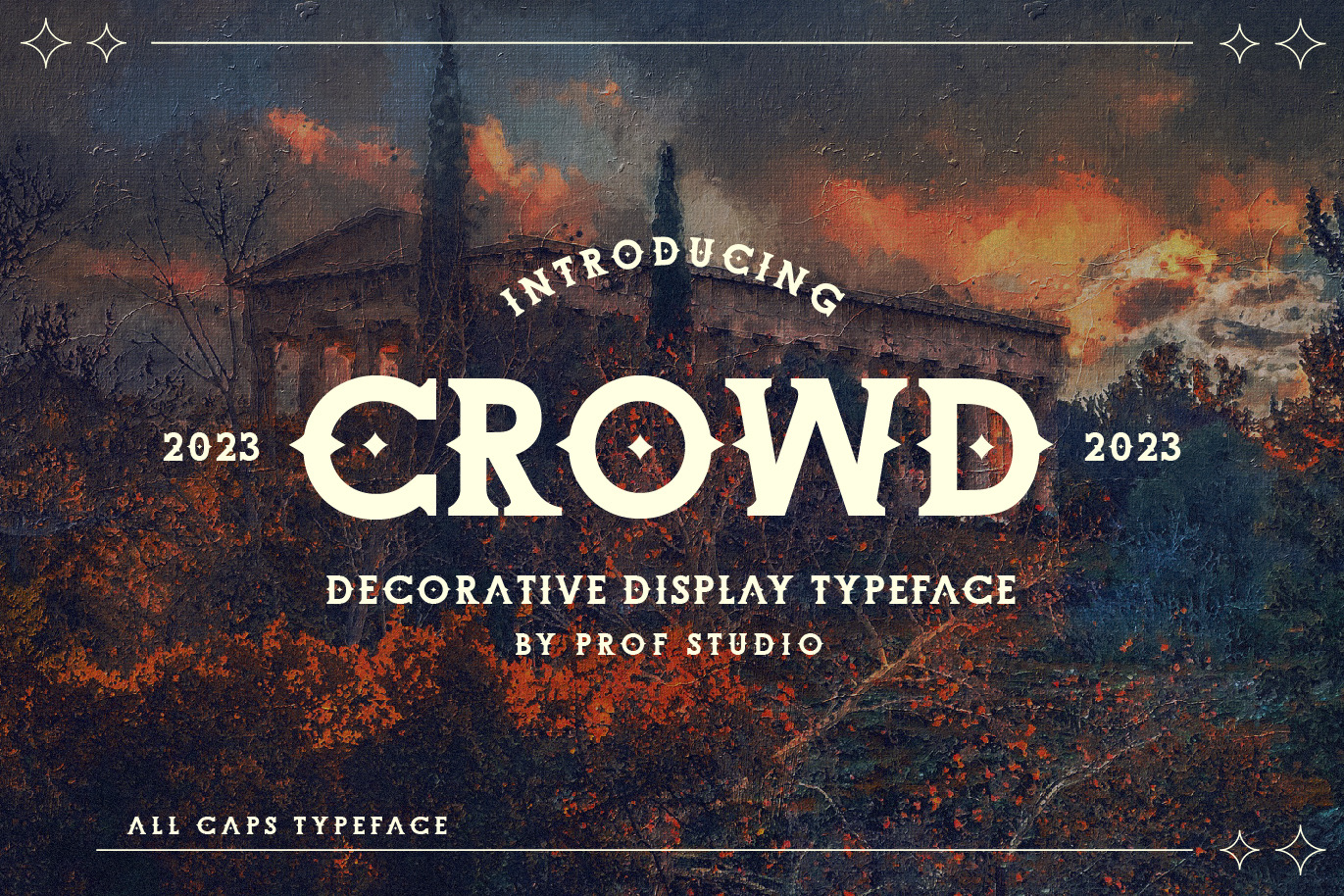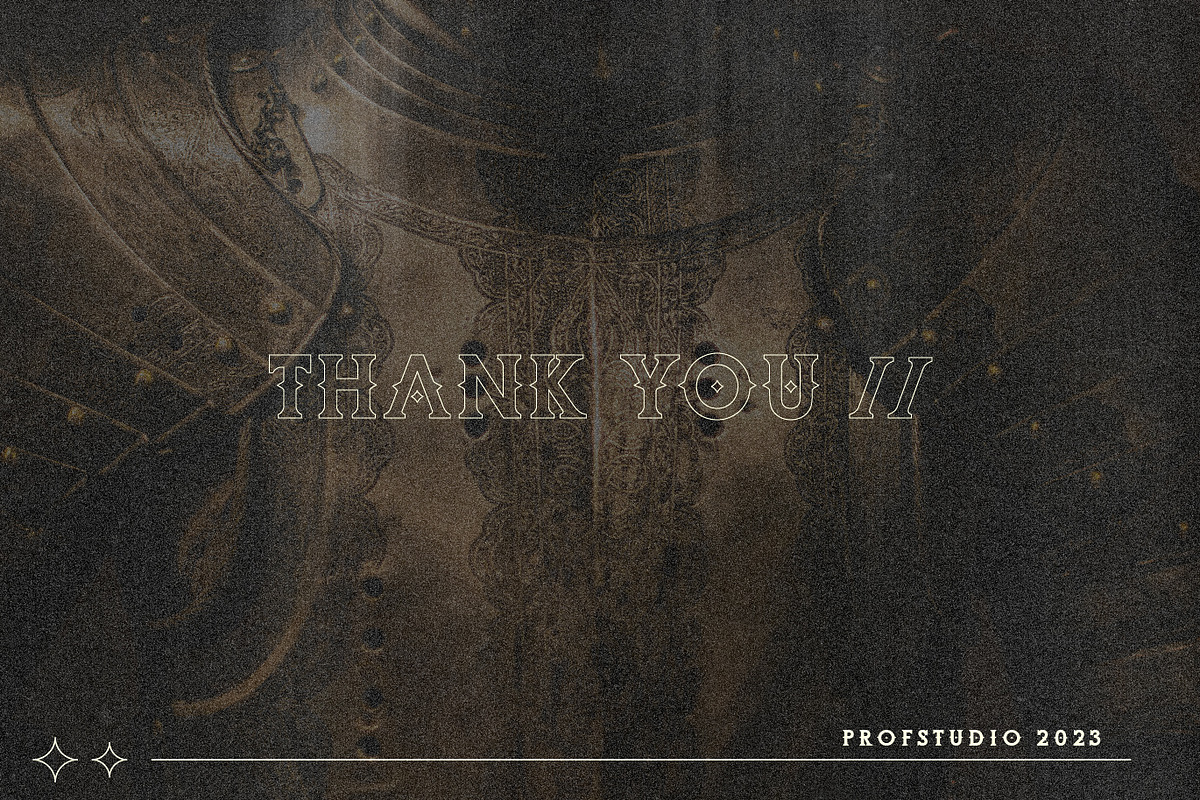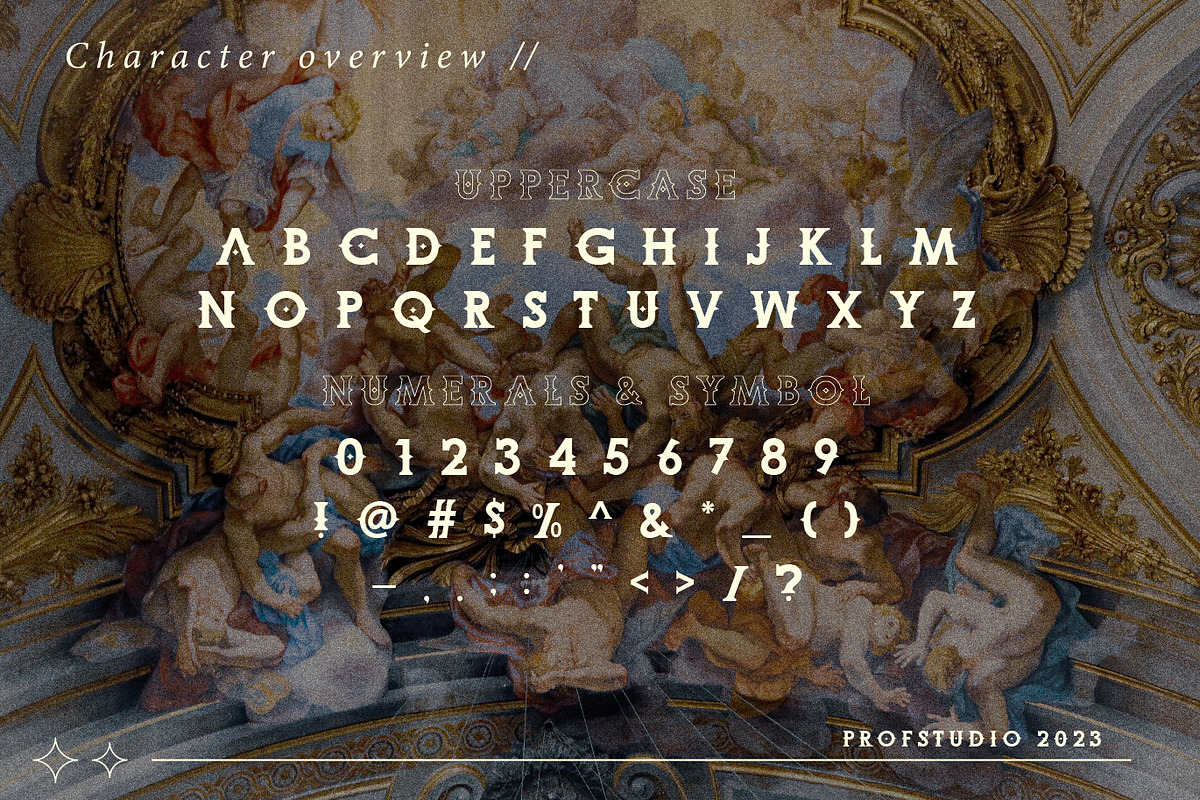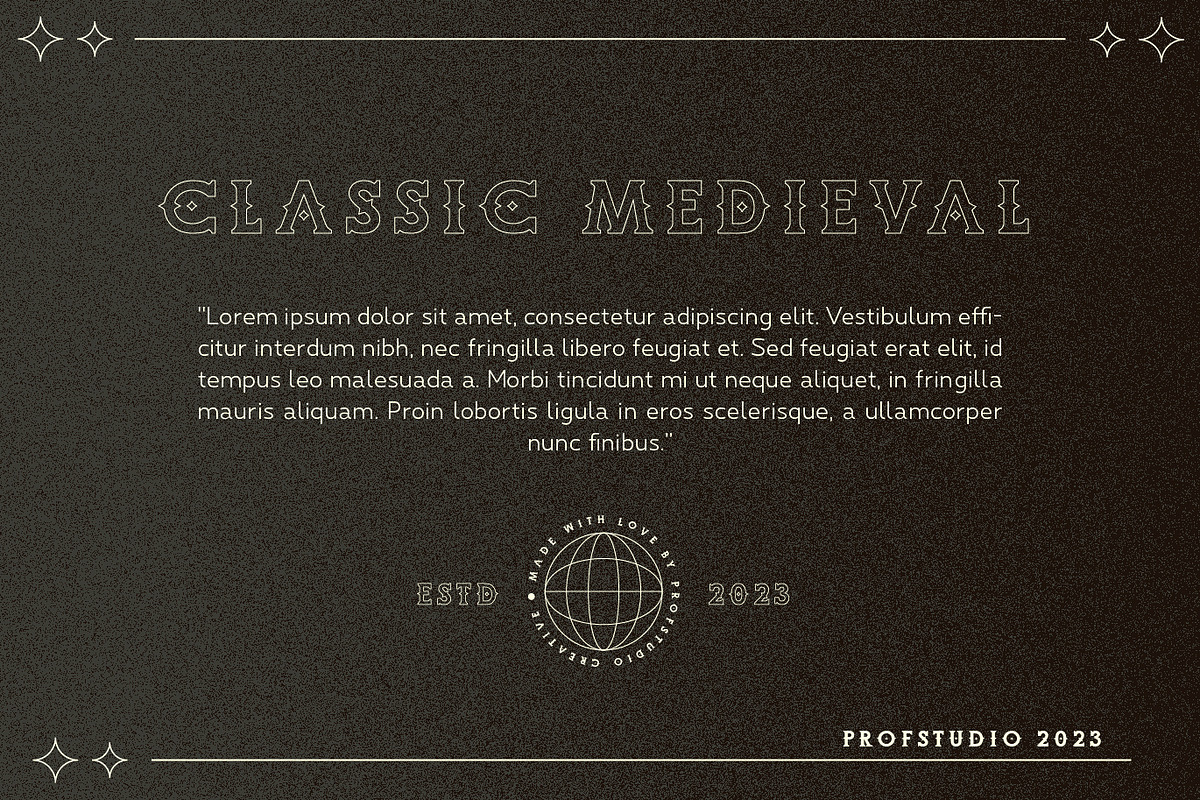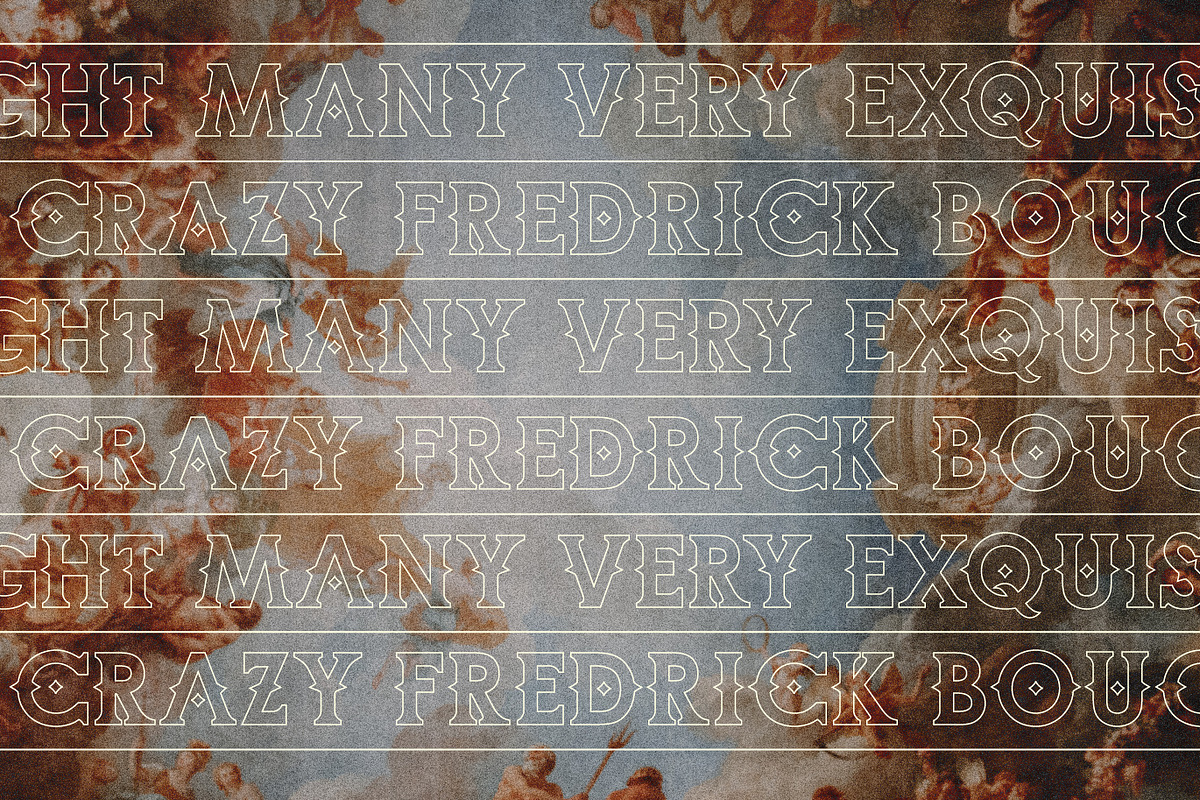
Crowd - Black Letter Typeface
Crowd - Black Letter Typeface which can be interpreted professional. we keep this font looks Stylish, readable, catchy and easy to use.
Crowd - is the great choice for event design ,magazine, poster, and many other design project. Crowd here to make your work to high level!!!